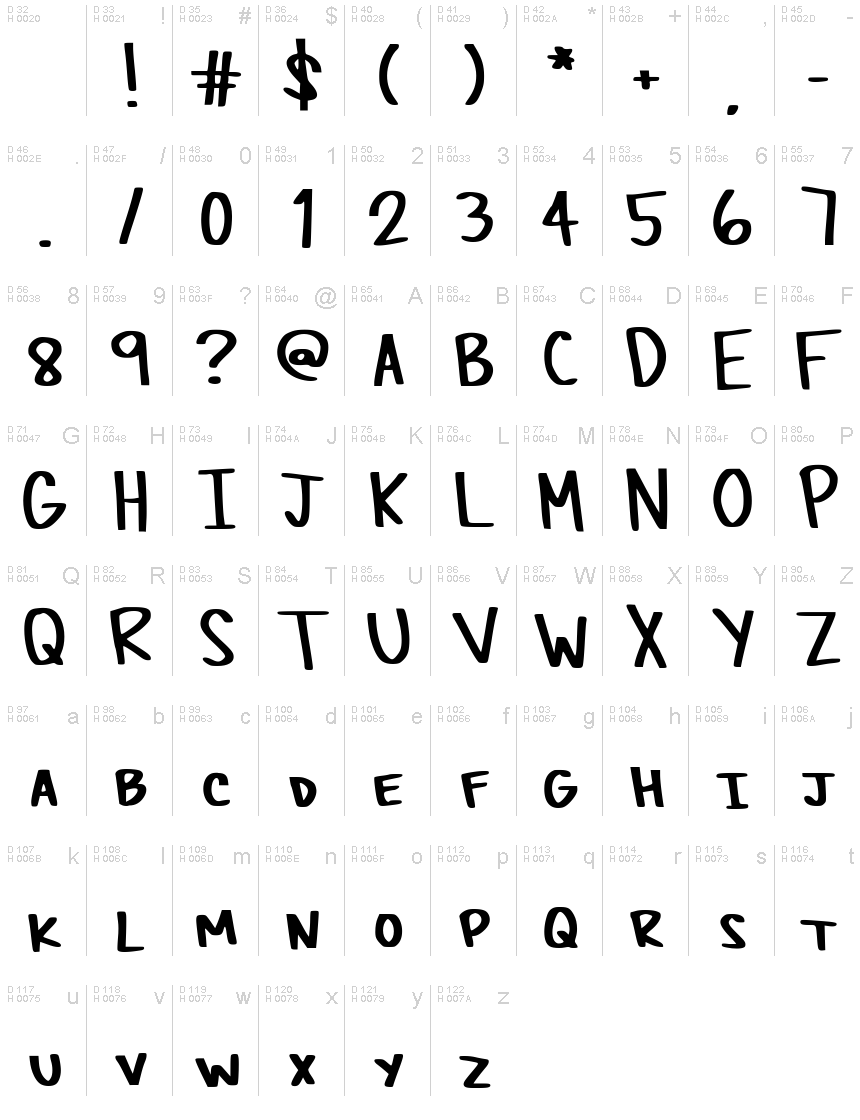
Rewritten Lite Regular
Rewritten Lite font by arisSome1 captures the informal charm of handwritten style with its playful, approachable appearance. This free font is perfect for projects that need a personal touch, featuring whimsical curves and an energetic flow that evoke the spontaneity of casual writing. Ideal for creative designs, Rewritten Lite can enhance invitations, personal notes, or any material seeking a warm, friendly vibe.
Its unique characteristics make it suitable for crafting memorable logos and eye-catching headlines. The handwritten style ensures your message stands out with authenticity and flair. Download Rewritten Lite today to infuse your designs with creativity and personality.